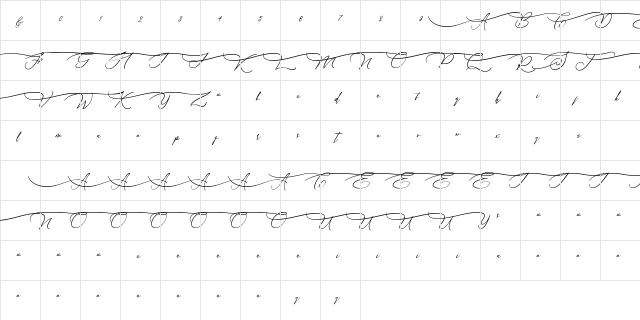
Sandrina Regular
Design Context for Sandrina Typeface
Sandrina is a composed and adaptable typeface that performs quietly and consistently across a wide range of design contexts.